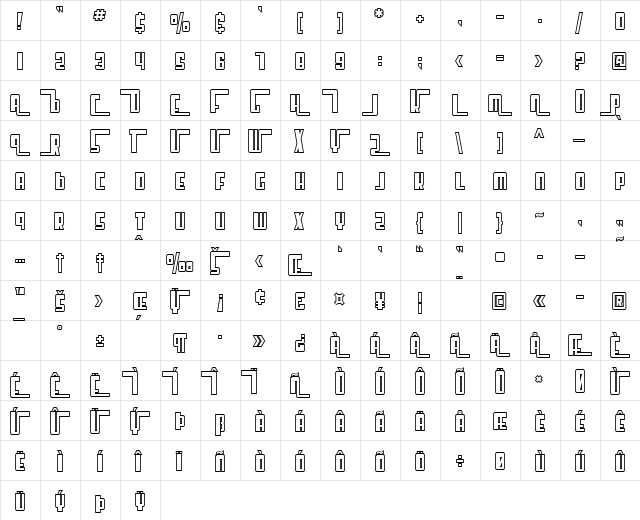
SF Cosmic Age Outline Regular
Design Context for SF Cosmic Age Outline Typeface
SF Cosmic Age Outline is built around its visual character rather than neutral utility — its distinctive forms are designed to make an impression at display sizes.
Font Pairing: Pair with a clean neutral sans-serif for body copy to let SF Cosmic Age Outline's character lead without overwhelming the composition.
Pro Tip: Use SF Cosmic Age Outline exclusively at display sizes — it was designed to be seen, not read at length. Let a neutral companion handle body copy.